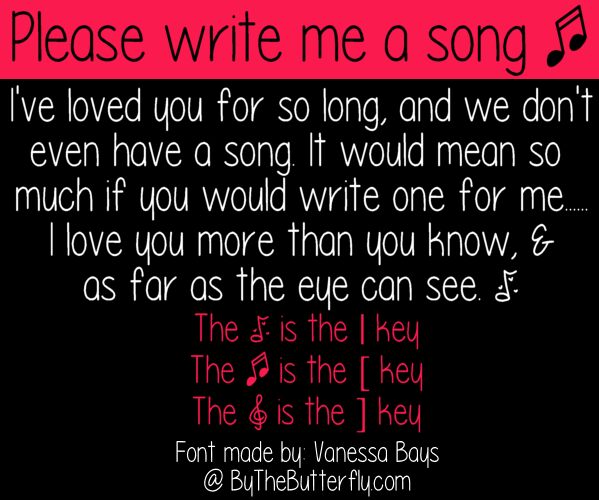
Please write me a song
Please Write Me a Song by Vanessa Bays is a free handwritten font with exceptionally tall, narrow letters and a light monoline stroke. Its looping curves, loose joins, and gently uneven forms give the writing the candid look of a quick personal note.
Independent music labels and acoustic venues can use it for branding that feels intimate and unpolished. It is especially apt for album covers, concert posters, and lyric booklets. The same informal lettering also suits personal stationery and handmade gift packaging.